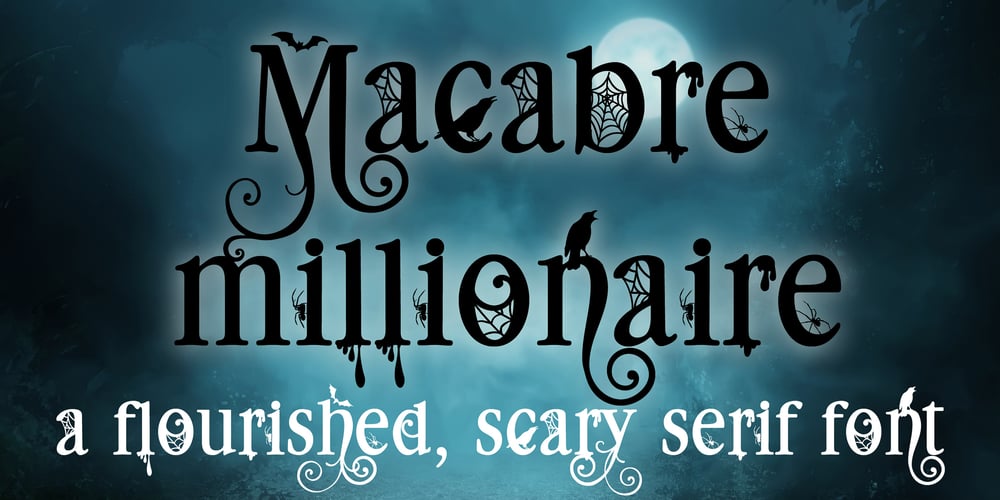
PN Macabre Millionaire Font Family was designed by Illustration Ink and published by Illustration Ink. PN Macabre Millionaire contains 1 styles and family package options. This serif font sports elongated flourishes, spider webs, bat, crow and moon silhouettes for a great Halloween font.A hand-crafted font is a font that is designed to look like it was written by hand. It is often used for invitations, greeting cards, and other items. Handwritten fonts can be either formal or informal, and they can be used for a variety of purposes.Some of the characteristics of handwritten fonts include: The letters are not perfectly uniform in size or shape. There may be slight variations in the spacing between letters and words. The font may have a “wiggly” or “squiggly” appearance. The font may be difficult to read at small sizes. Handwritten fonts can be a great way to add a casual touch to your designs. They can also be used to create a sense of nostalgia or whimsy. However, it is important to choose a handwritten font that is appropriate for the project you are working on. A formal handwritten font may not be appropriate for a casual invitation, while an informal handwritten font may not be appropriate for a corporate document.